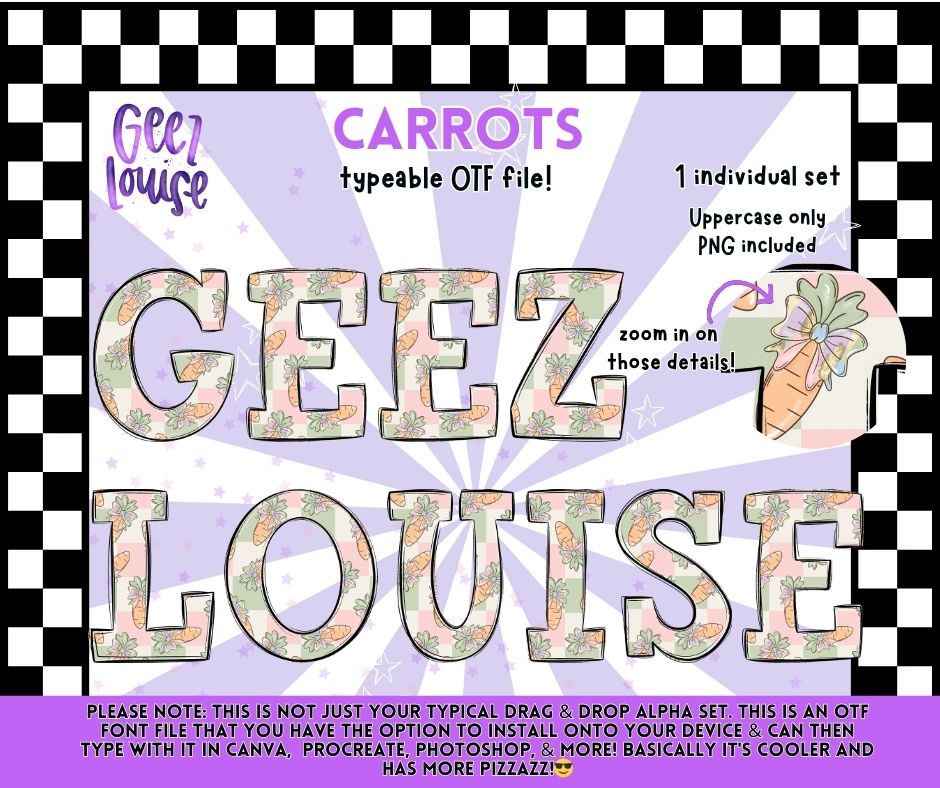
Carrots OTF Font | Uppercase Typeface + PNG | Spring Alphabet Design
Meet Carrots — a soft, spring-inspired alphabet with charming carrot details and a clean, playful look 🥕
Perfect for Easter projects, spring designs, kids apparel, boutique graphics, and anything that needs a light, seasonal touch.
• Uppercase letters only